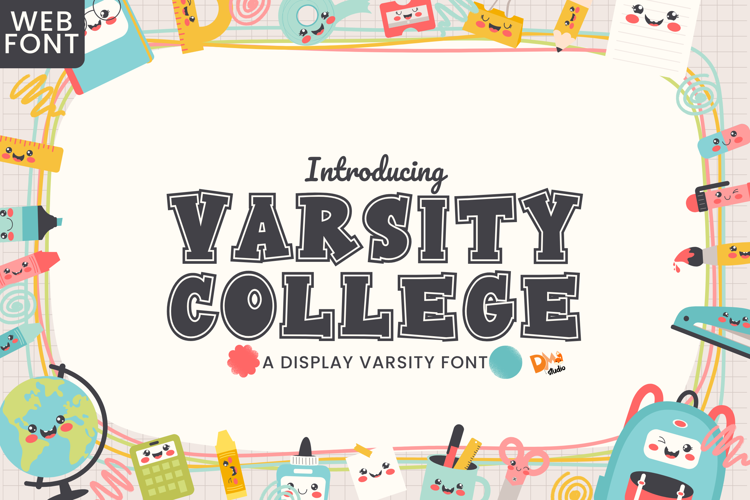
Varsity College Font
Varsity College Font is a bold and athletic typeface inspired by classic varsity and collegiate lettering. Its strong, blocky letterforms make it perfect for sports team branding, university apparel, school projects, and championship posters. Whether you're designing for a high school football team, a college banner, or a vintage-inspired logo, this font delivers a powerful and energetic style.
• Classic Collegiate Design: Inspired by traditional varsity and sports typography.
• Bold and Strong Letterforms: Ideal for making a strong impact in athletic and academic projects.
• Versatile Application: Great for sports jerseys, team logos, school banners, merchandise, and more.
• Uppercase and Lowercase Letters: Provides flexibility for various design styles.
• Punctuation and Symbols: A comprehensive set for professional and creative use.